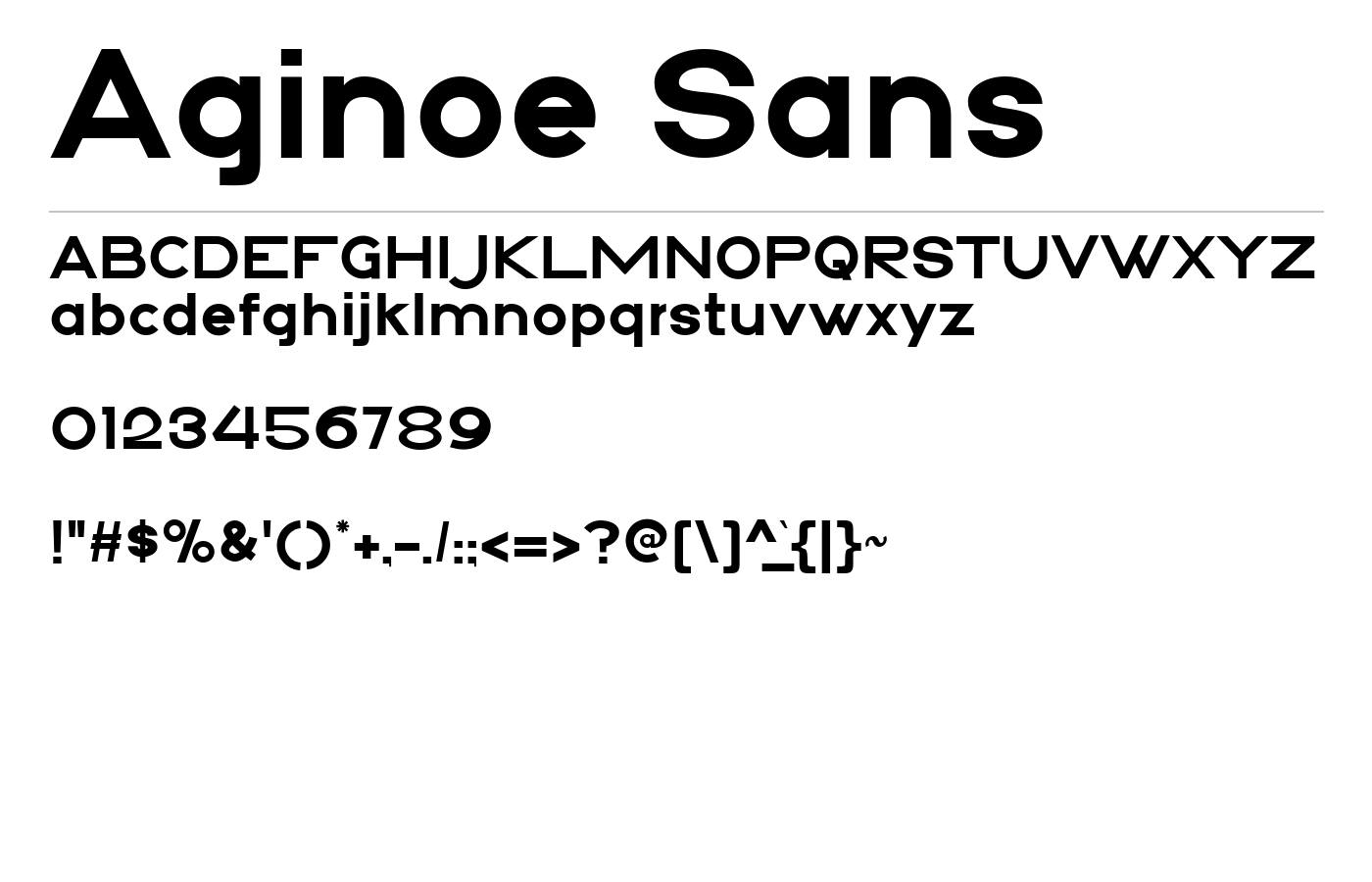
Aginoe Sans is a bold, modern sans-serif font with a clean and geometric design that balances strong, straight lines with subtle curves. It features a high x-height, uniform stroke weight, and distinctive single-story lowercase letters, making it highly readable and versatile. This font is ideal for contemporary branding, headlines, and digital interfaces where a confident and professional appearance is desired.
Aginoe Sans Font
About Aginoe Sans Font
| Font family | Aginoe Sans Font |
| Designer | Candi Erwanto |